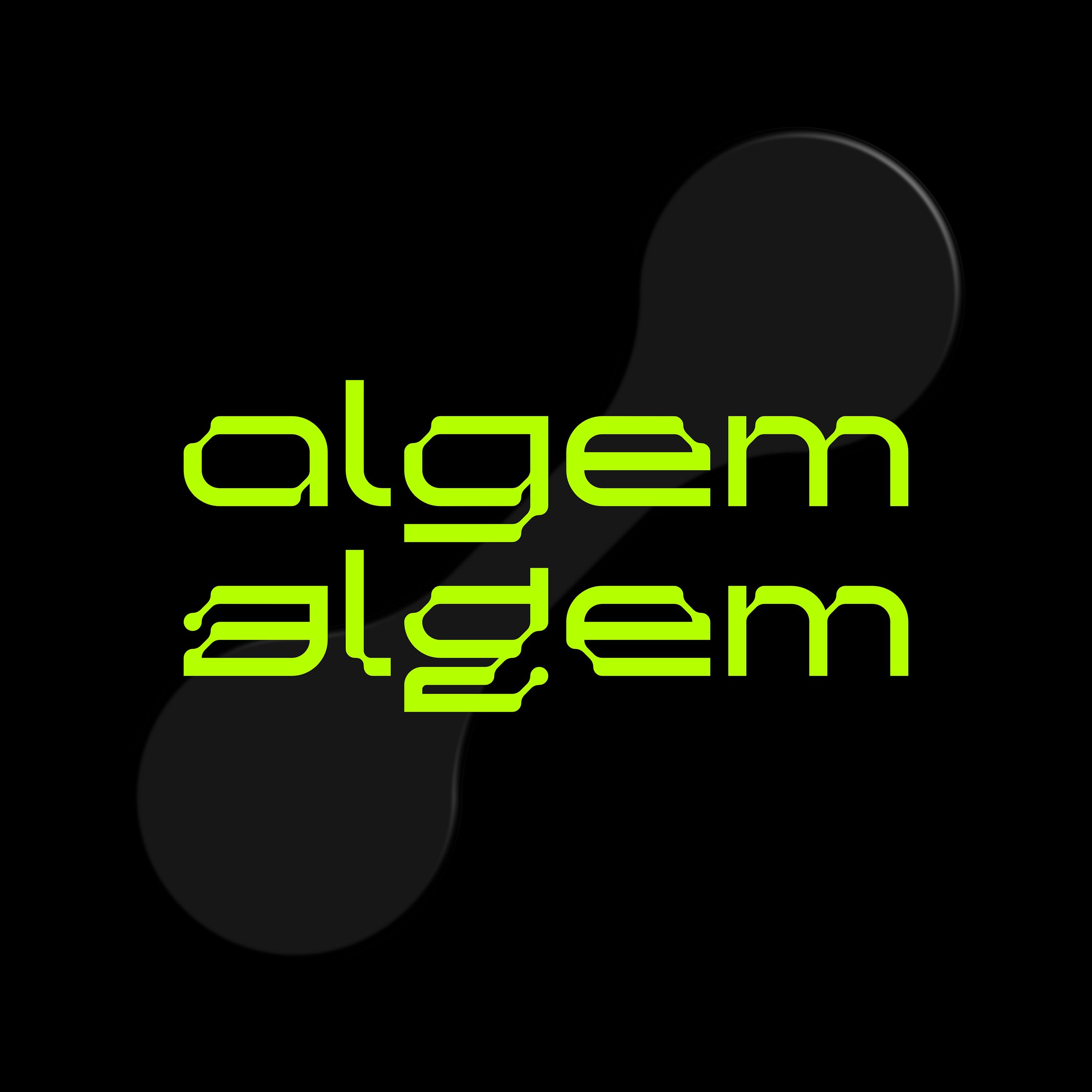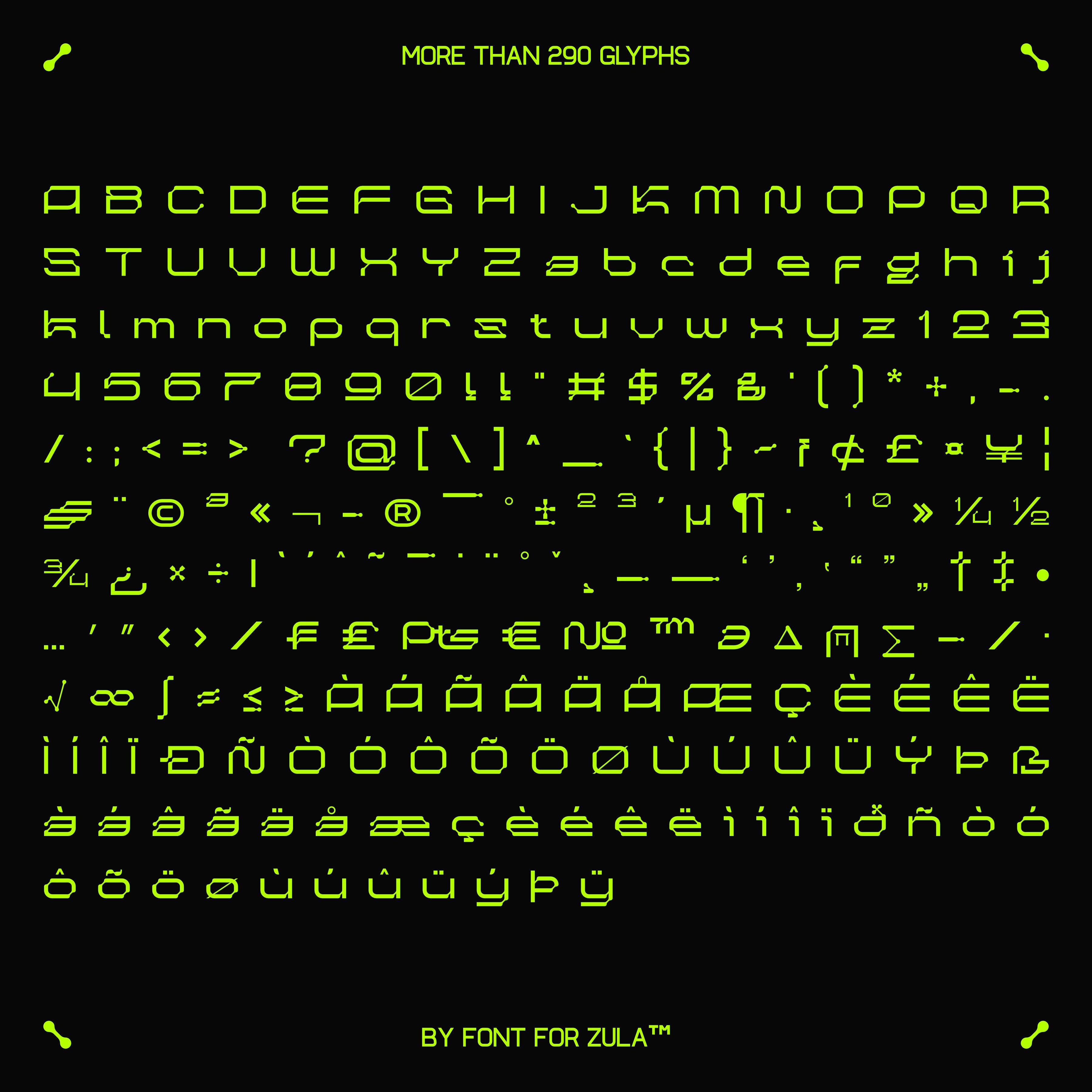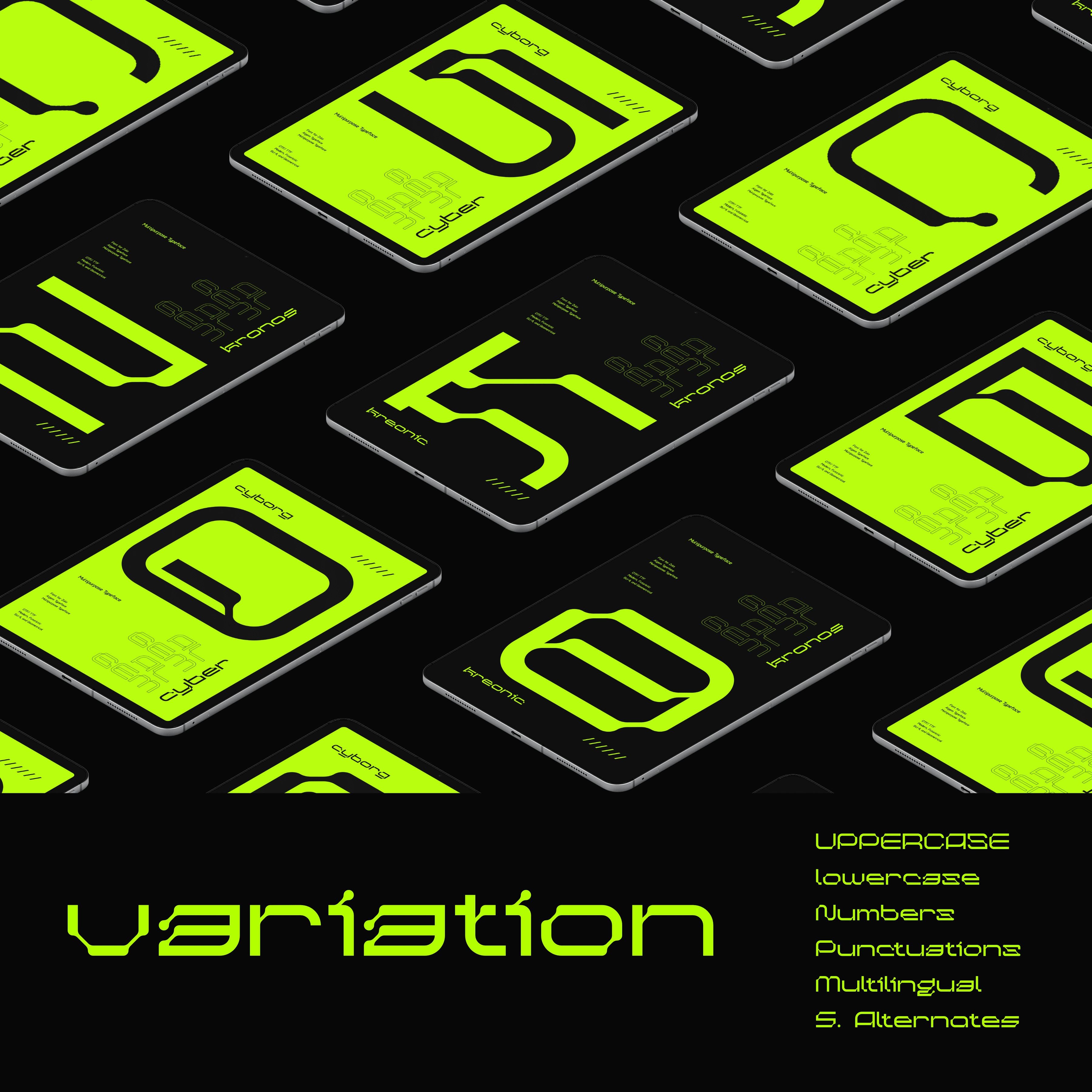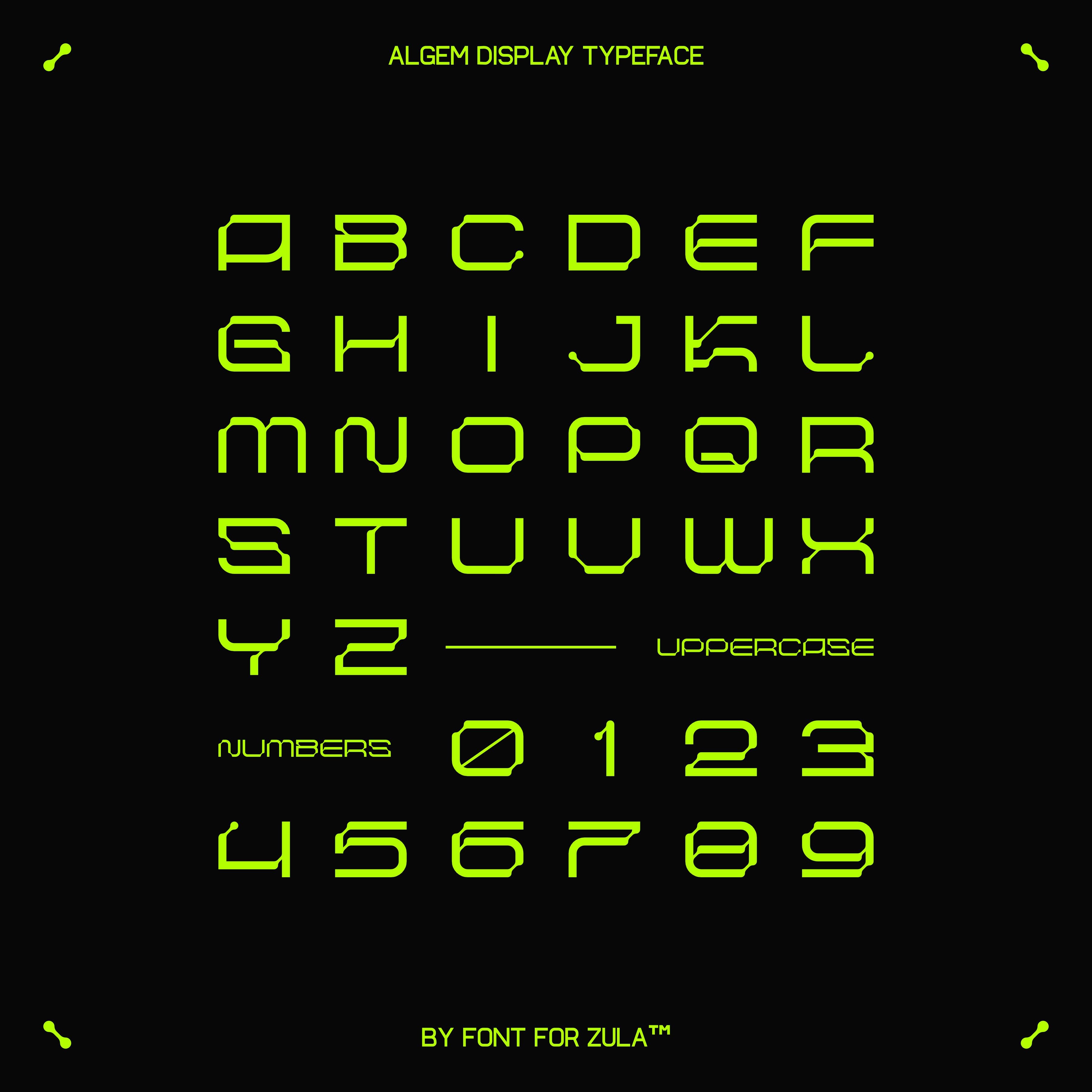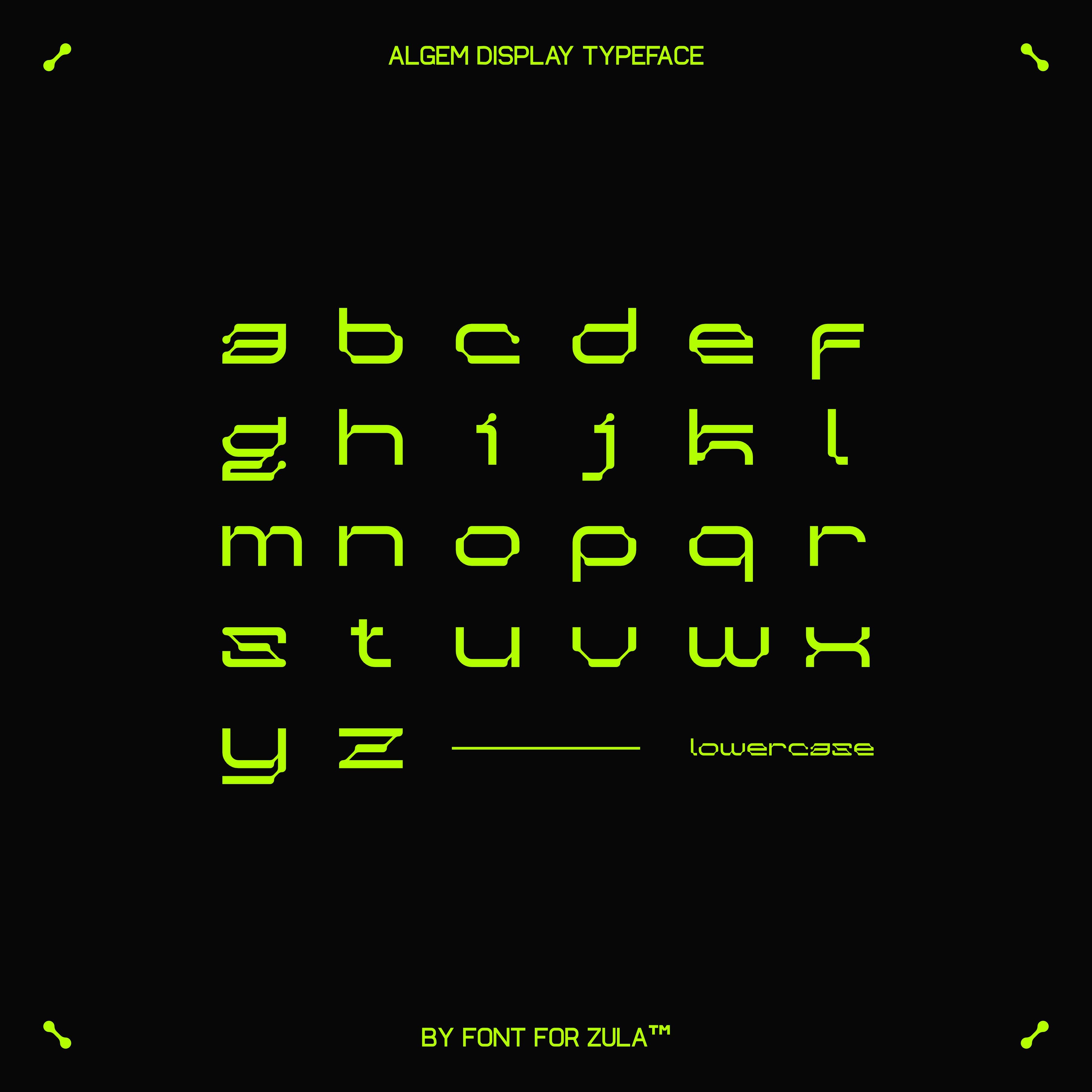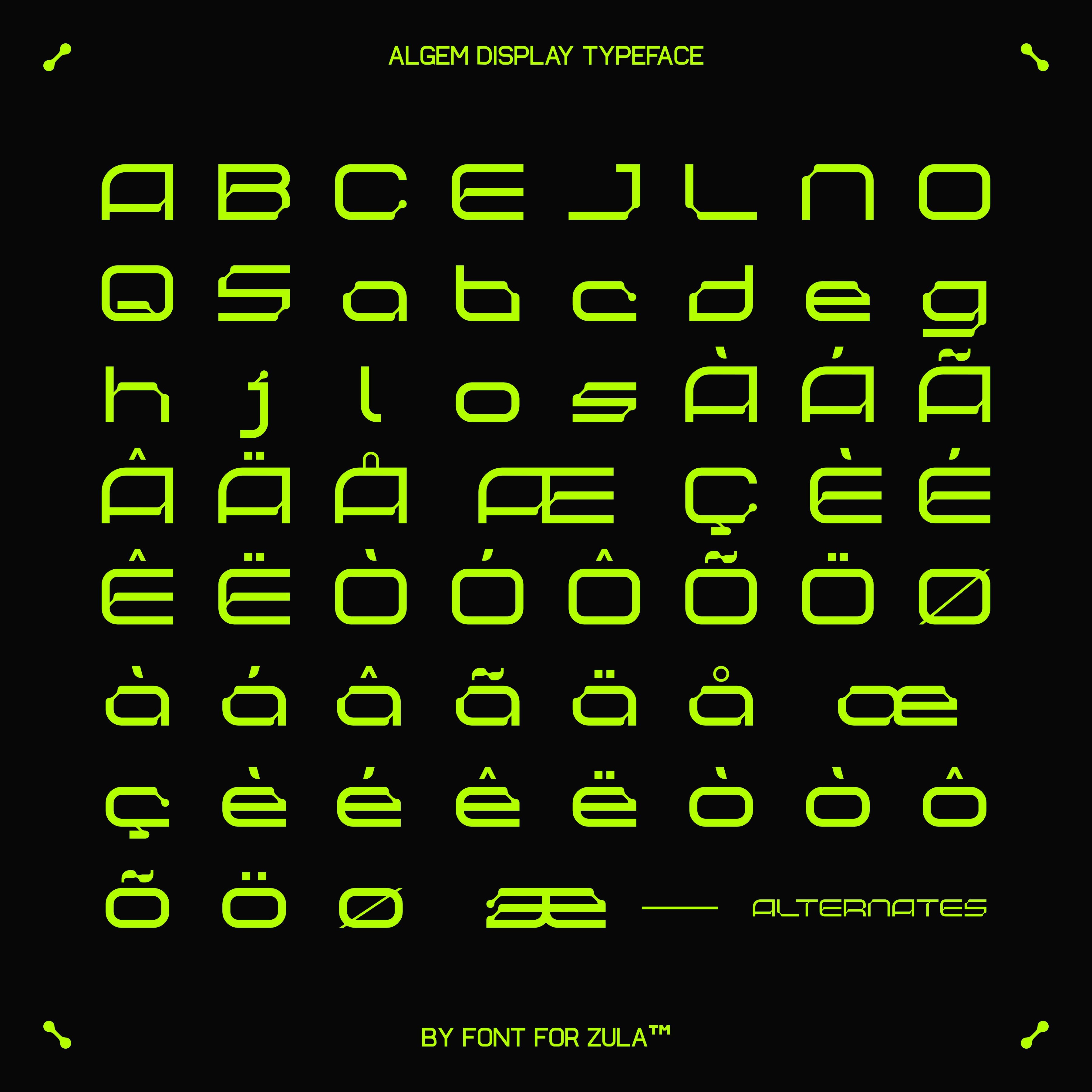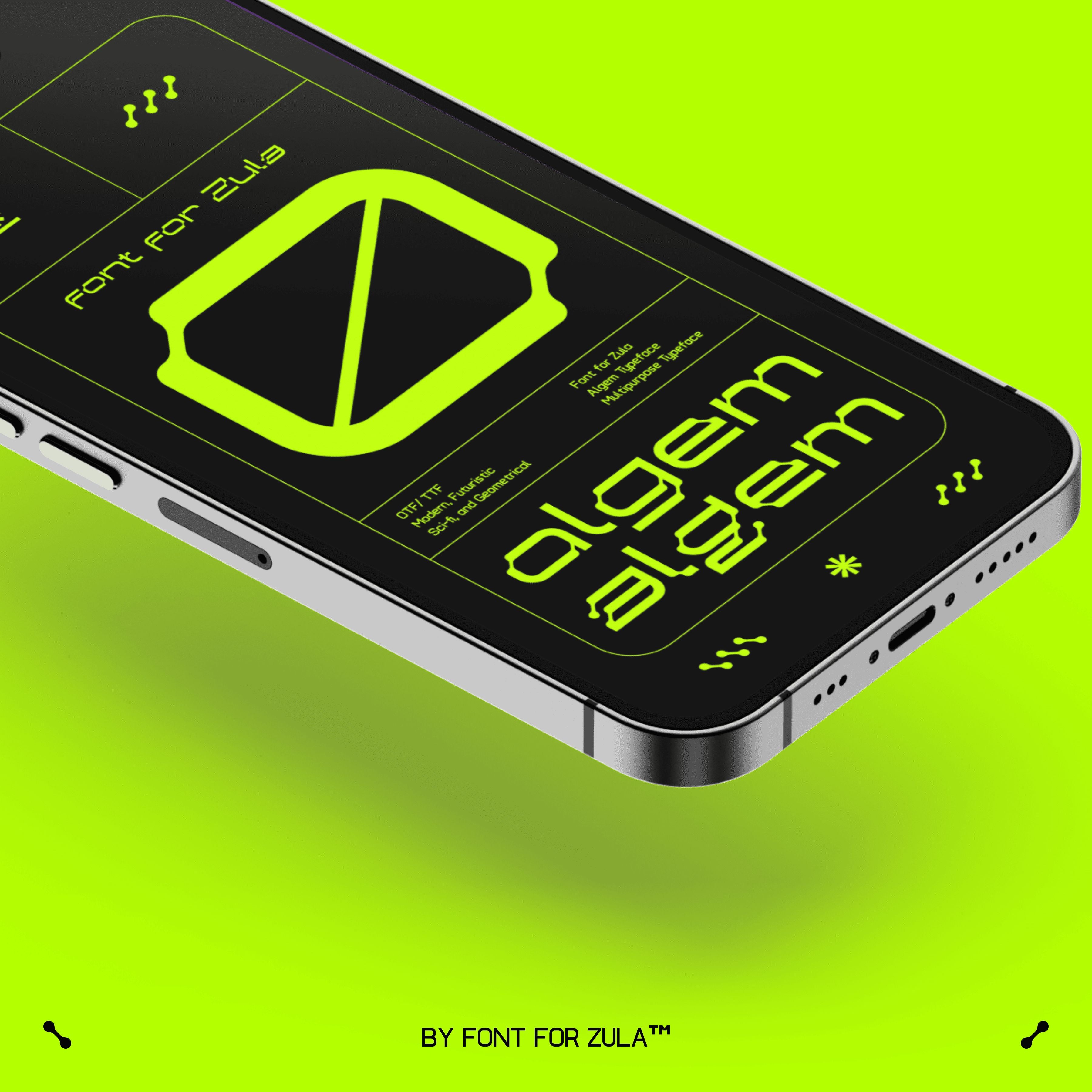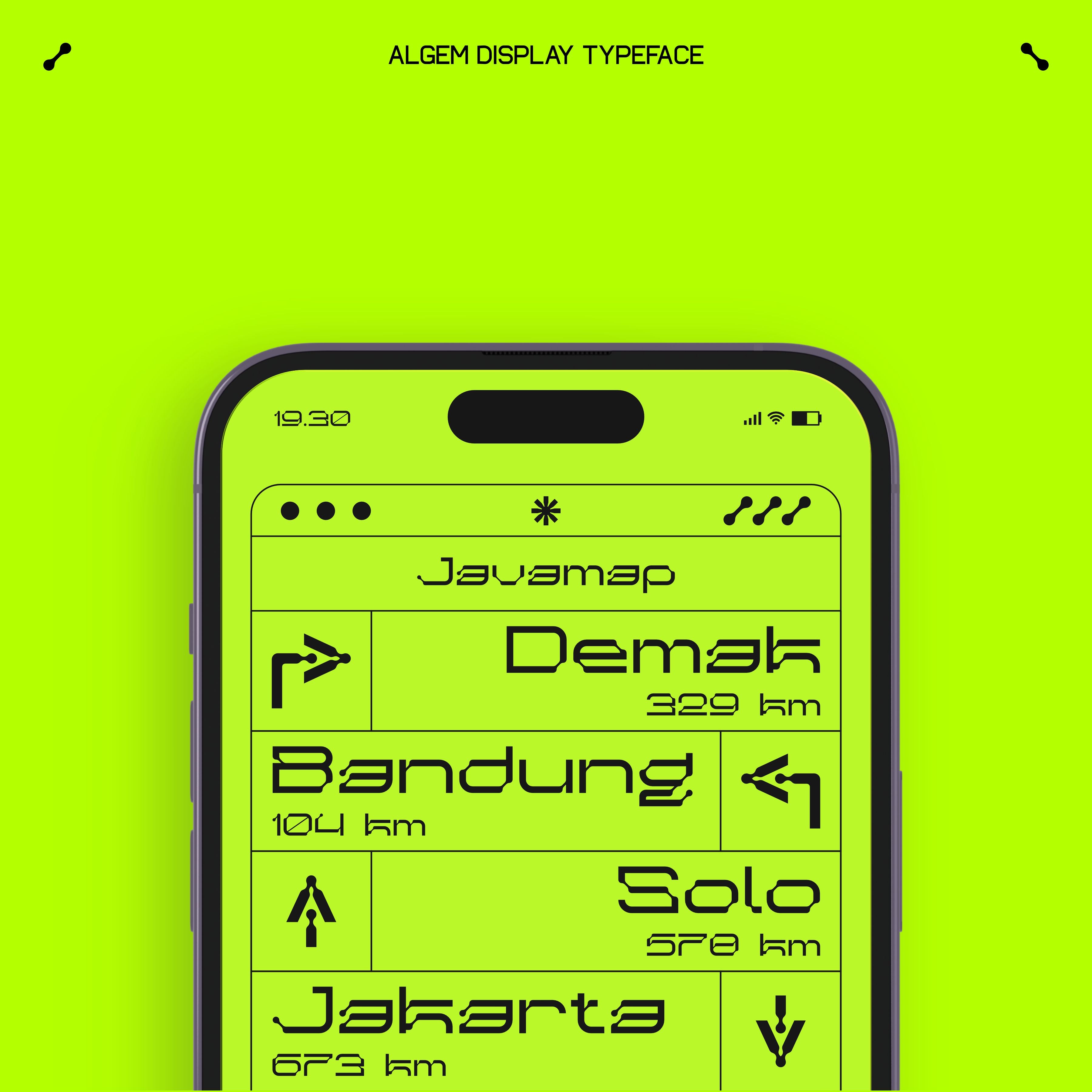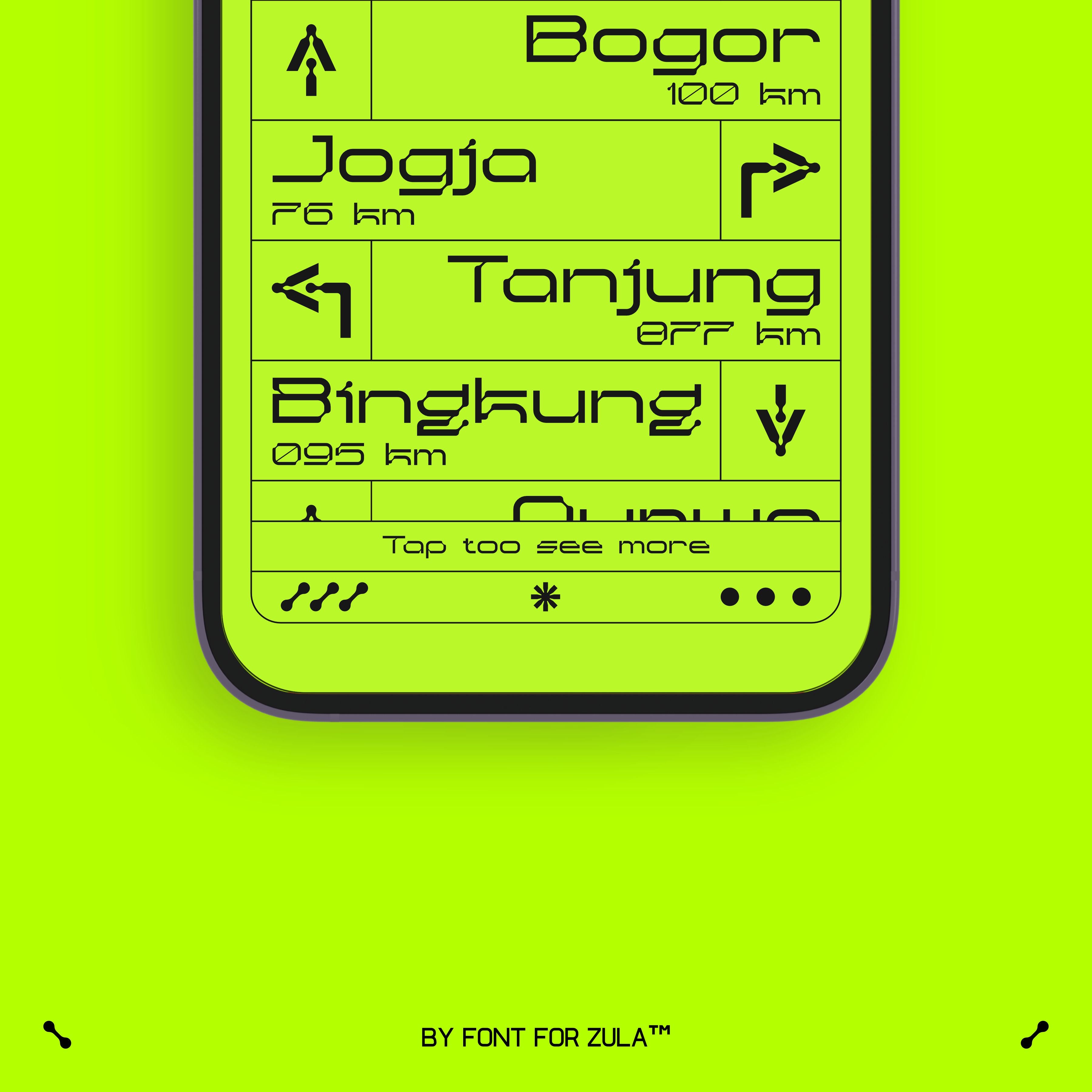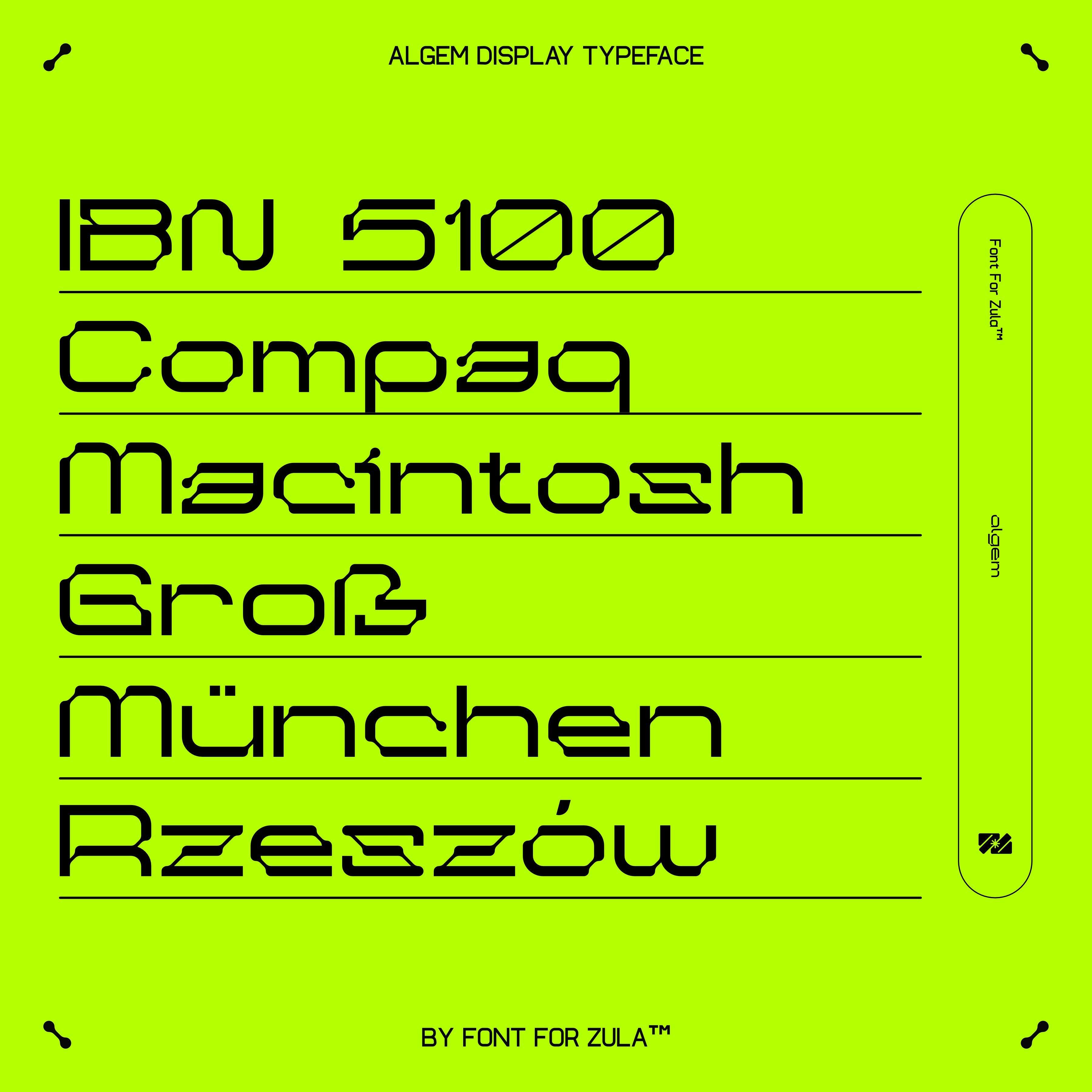
ALGEM Typeface
The ALGEM Typeface is a multipurpose, futuristic font that includes OTF/TTF, WOFF formats, and features a regular weight. It comprises 291 glyphs, including 56 uppercase, 60 lowercase, 16 numbers, 44 punctuation marks, and 115 other letters, currency signs, symbols, and more.
Ideal for futuristic and modern graphic design projects. Perfect for branding, logos, posters, and apparel, ensuring a unique and impactful visual identity.